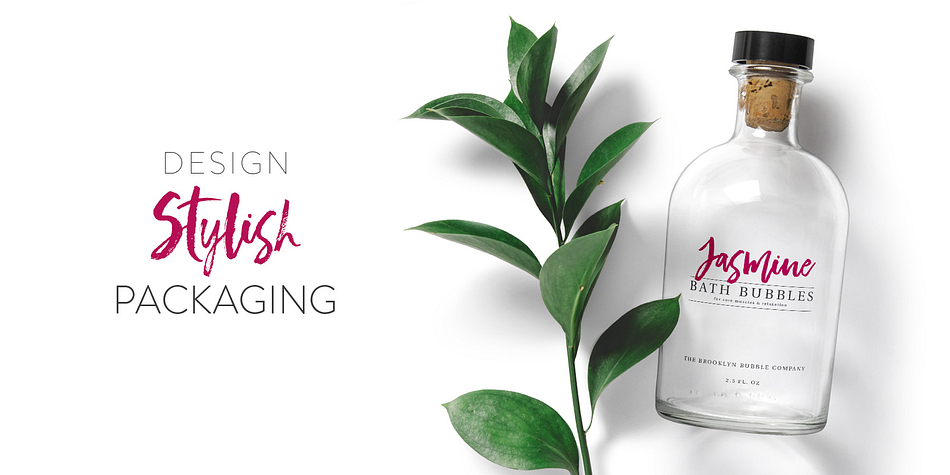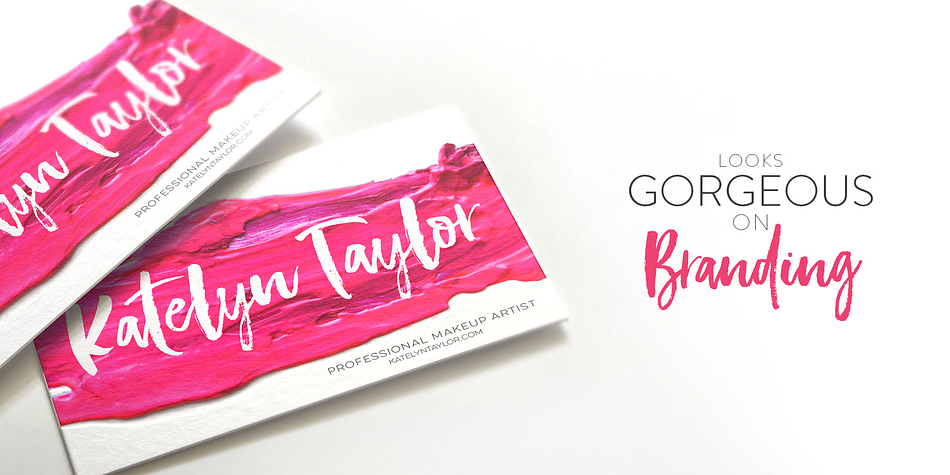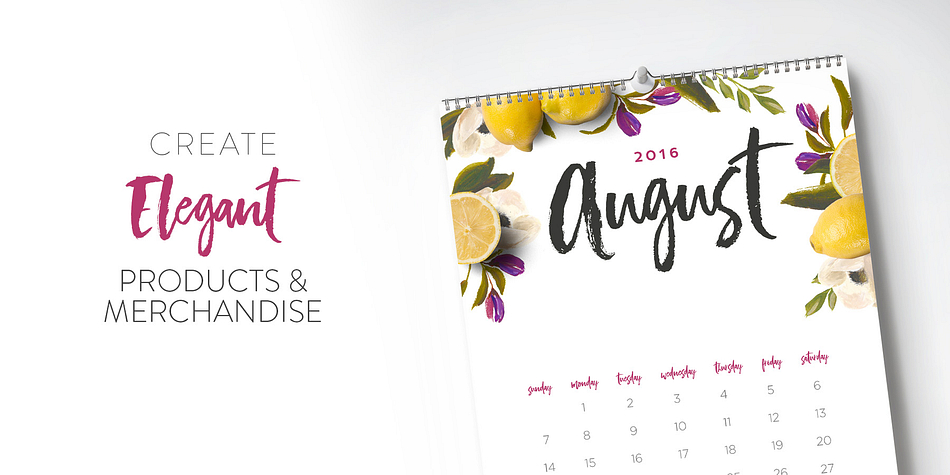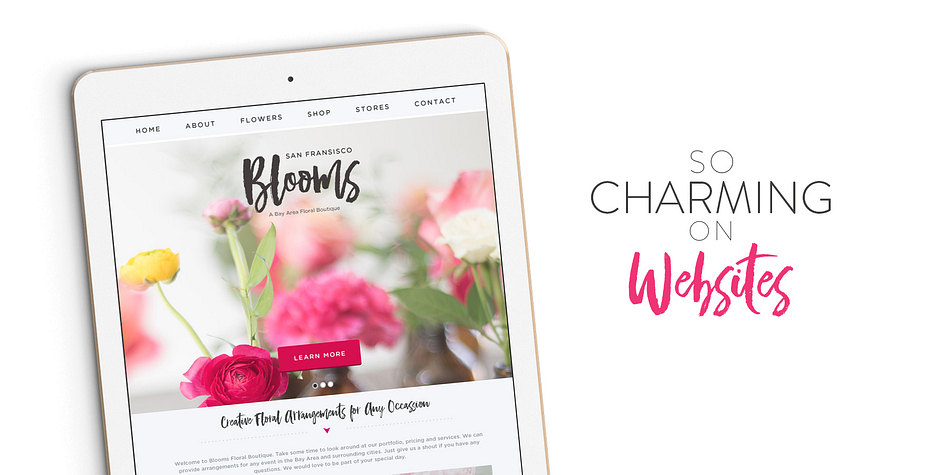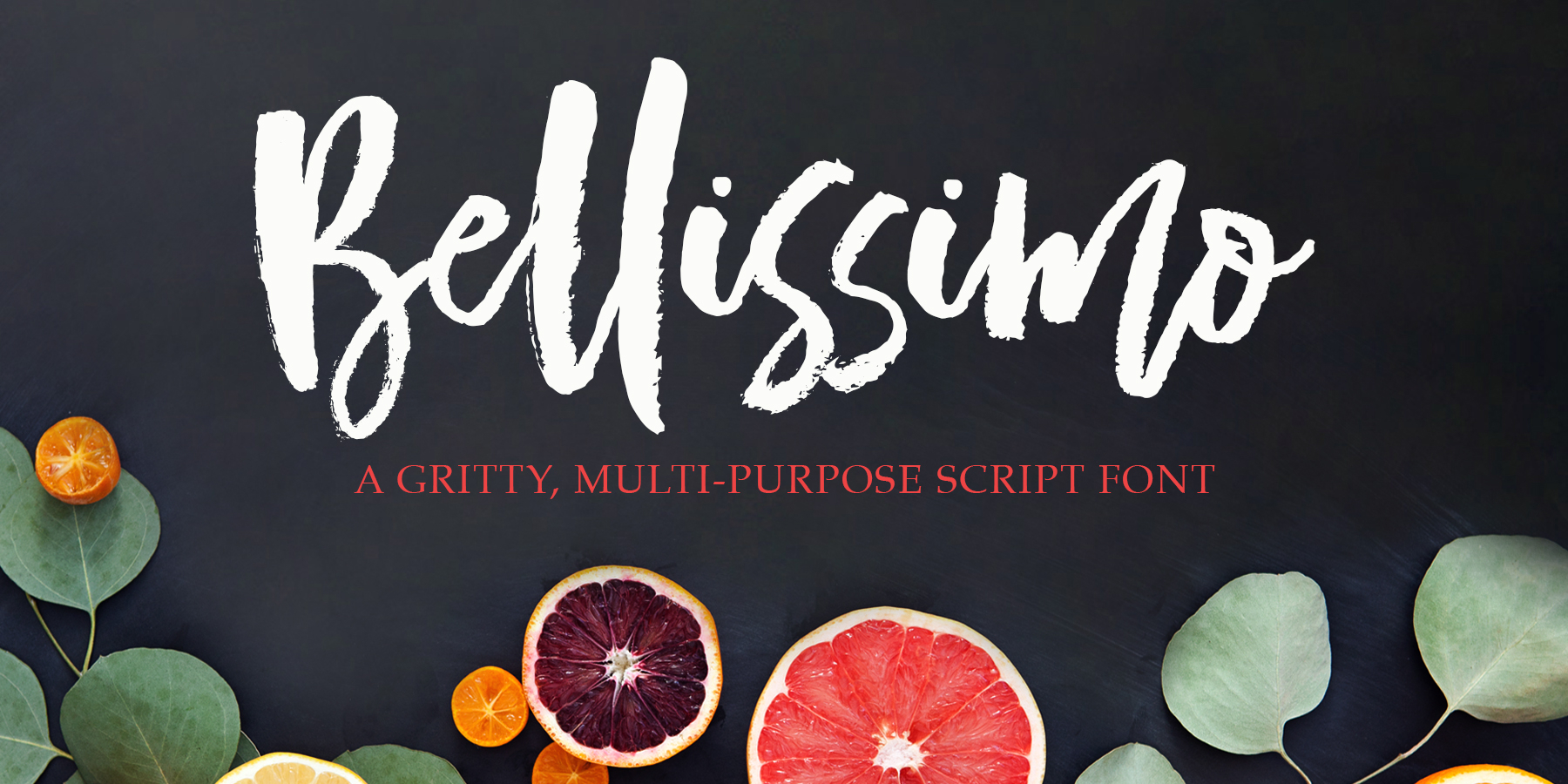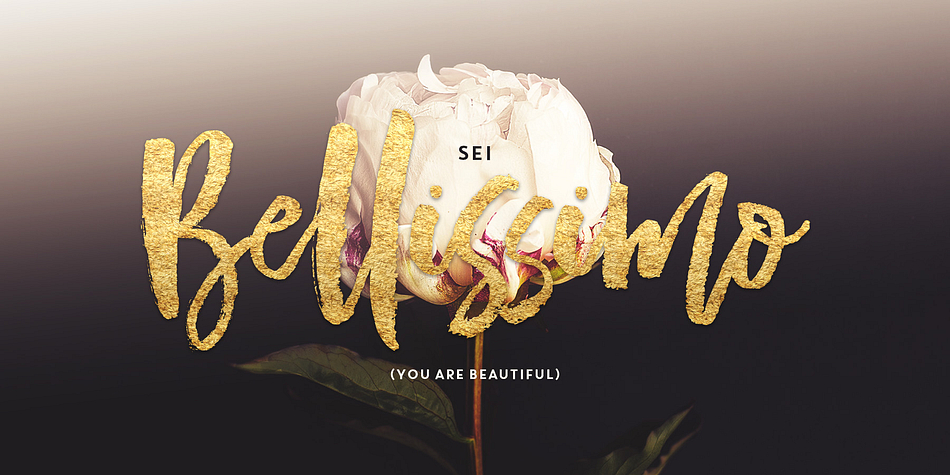
Designed by Callie Hegstrom, Bellissimo is a modern calligraphy font published by MakeMediaCo.
Say Ciao to Bellissimo! A trendy, hand-brushed font, designed with branding in mind. Bellissimo looks gorgeous on logos, websites, invitations, greeting cards, magazines, business cards, packaging and more! Bellissimo comes with Western European language support and standard ligatures.